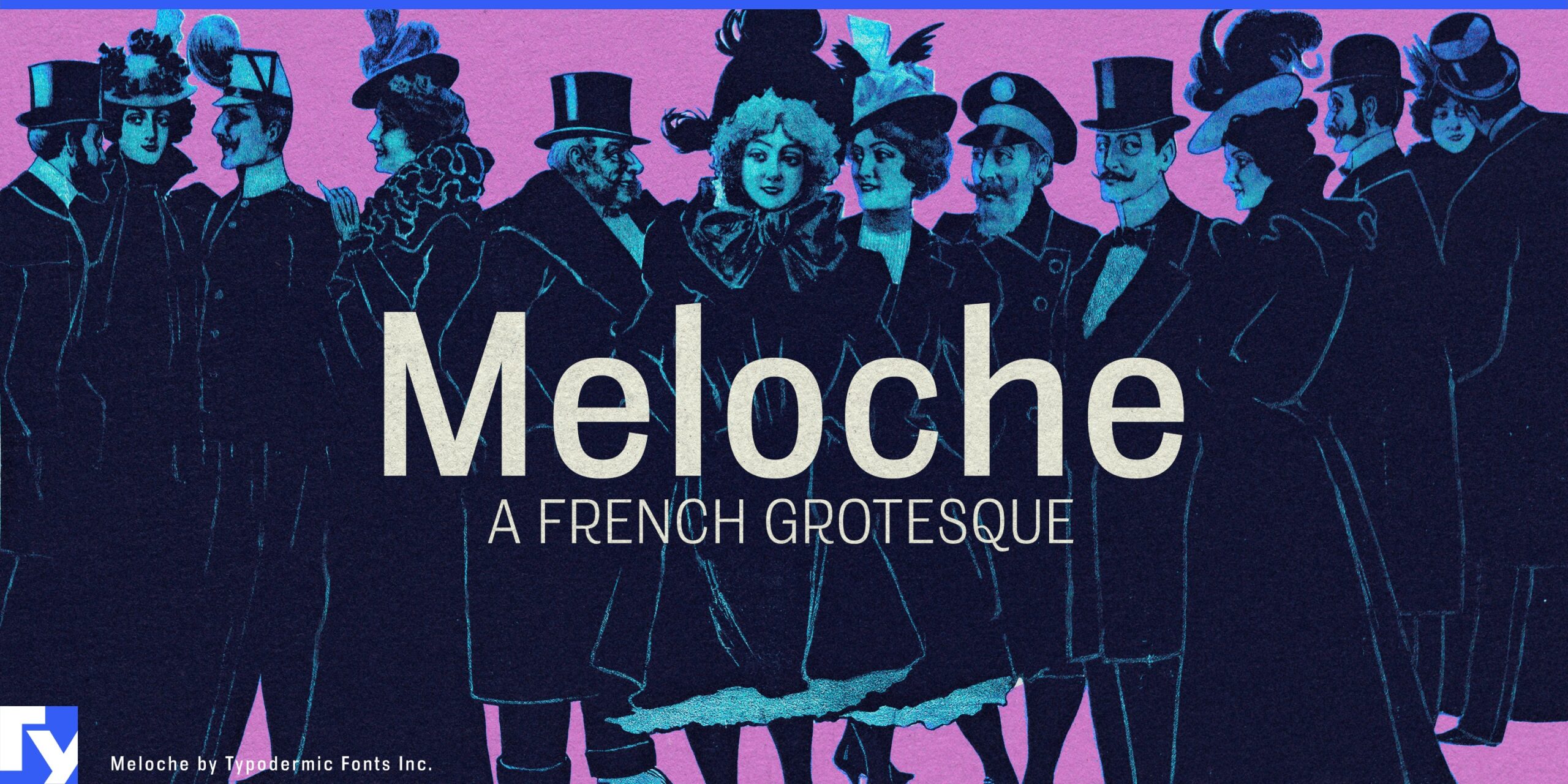
Meloche Font Family
Meloche Font Family is a premium-quality font developed to enhance your work with a polished, modern, and visually elevated look. Meloche is a French grotesque typeface with a quiet elegance—born from the lettering traditions of late 19th-century Paris but crafted for modern versatility. Its subtle stroke modulation, inherited from serif ancestors, gives each character a warmth and sophistication rarely found in sans-serifs. Closed curves and angled stroke ends add a gentle softness, making it equally at home in refined headlines and approachable body text.
With seven weights and matching obliques, Meloche adapts seamlessly from delicate editorial work to bold display typography. Its twenty weight-matched fleur-de-lis ornaments—accessible instantly via shortcodes like [fleur1]—let you add heritage flourishes without leaving your text frame. No extra files, no searching through glyph palettes—just type and they appear. Meloche speaks fluently across borders, covering Latin, Greek, and Cyrillic alphabets along with Vietnamese, making it a reliable choice for multilingual projects. Whether you’re designing boutique packaging, crafting an exhibition identity, or creating a literary cover that calls for Parisian grace, Meloche brings a balance of history, charm, and functionality.
From the romance of Belle Époque signage to today’s branding and publishing needs, Meloche offers a timeless voice—grounded in tradition, ready for the present.